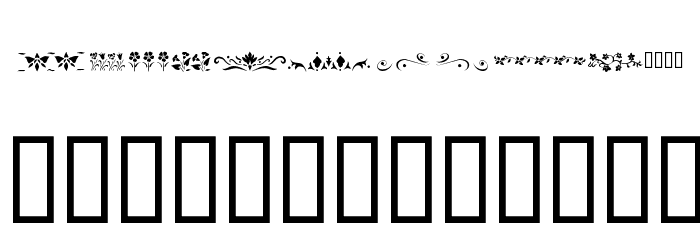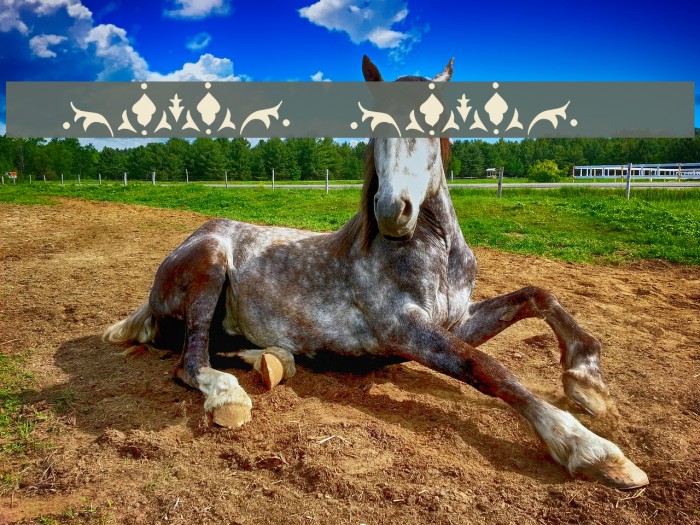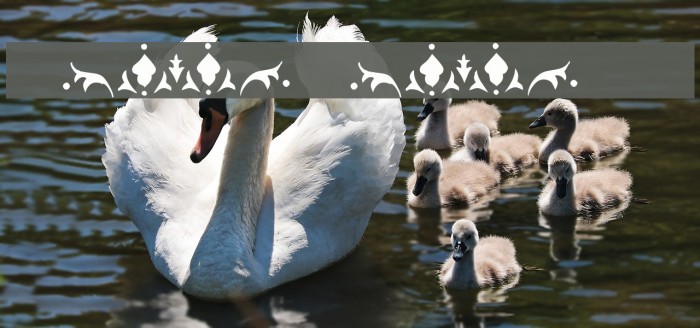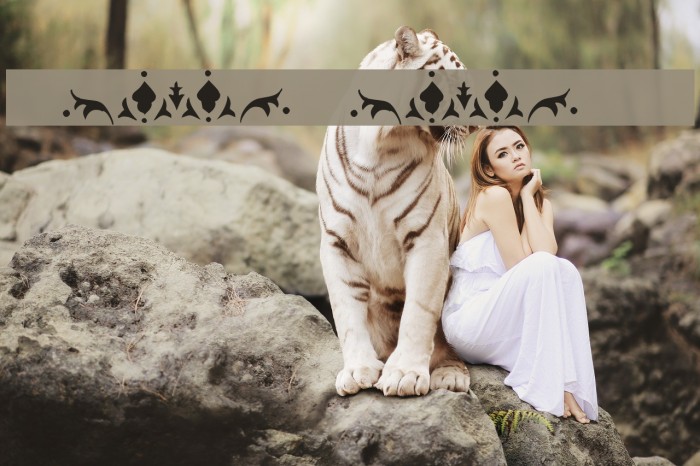
KR Fleur Flair Lines 3 Font
This design features a series of intricate floral and ornamental line patterns, creating a decorative and elegant appearance. The motifs include a variety of floral elements, swirls, and symmetrical designs that are perfect for adding a touch of sophistication to any project. The lines are consistent in thickness, providing a balanced and harmonious look. These elements can be used to create borders, dividers, or embellishments in design projects, offering a classic and timeless aesthetic.
Intricate floral and ornamental line patterns for decorative use.
- Proposed Projects: Ideal for wedding invitations, greeting cards, decorative borders, and elegant stationery designs.
- Use Case: Borders, Dividers, Embellishments